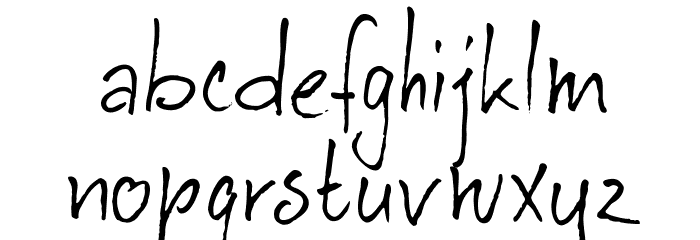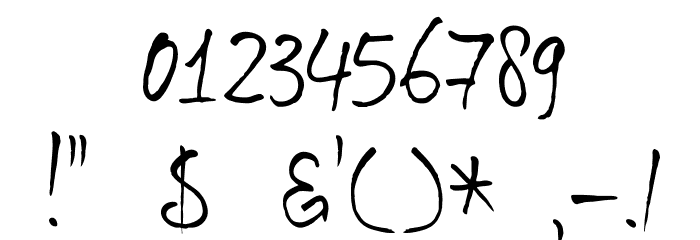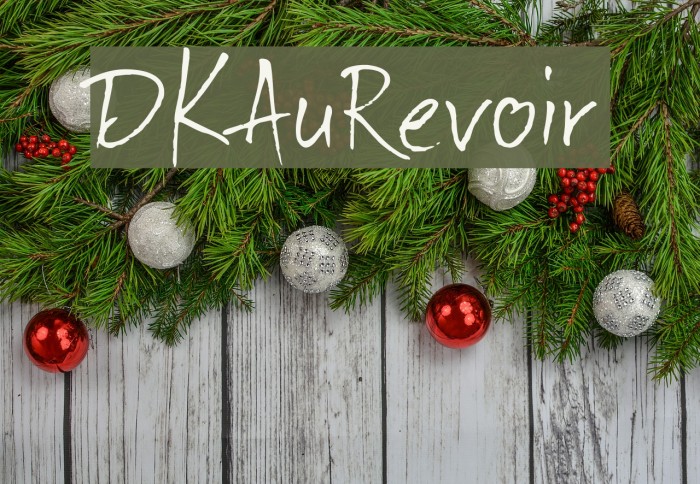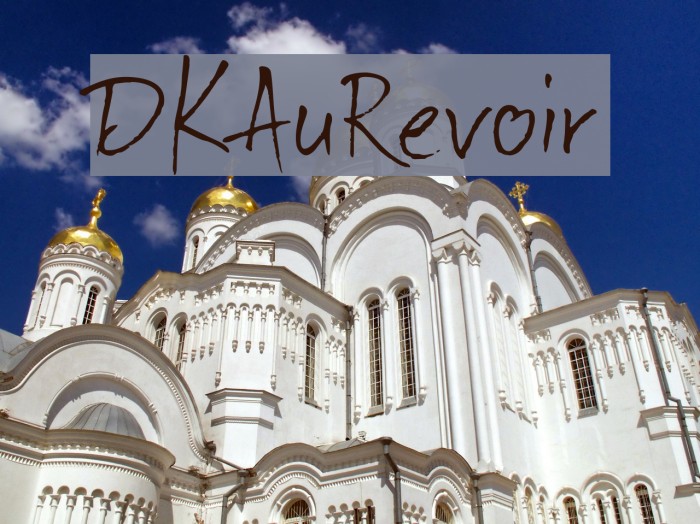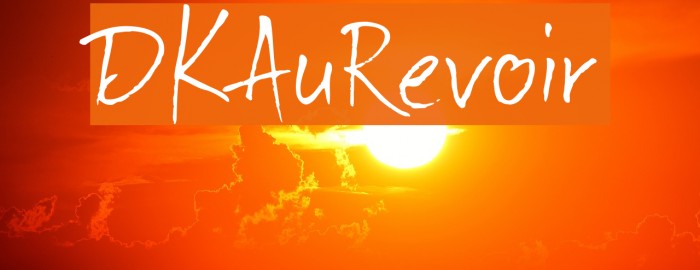
DKAuRevoir Font
This font exhibits a lively and expressive handwritten style, characterized by its fluid and dynamic strokes. The letters have a natural, organic feel, with varying thickness that adds a sense of movement and personality. The uppercase letters are bold and prominent, while the lowercase letters maintain a consistent flow, enhancing readability. The numbers and special characters are crafted with the same attention to detail, ensuring a cohesive look across all elements. This font is perfect for projects that require a personal touch, such as invitations, greeting cards, or artistic branding.
A lively, expressive handwritten font with dynamic strokes.
- Proposed Projects: Ideal for invitations, greeting cards, artistic branding, and personal projects.
- Use Case: Logos, Headlines, Artistic projects